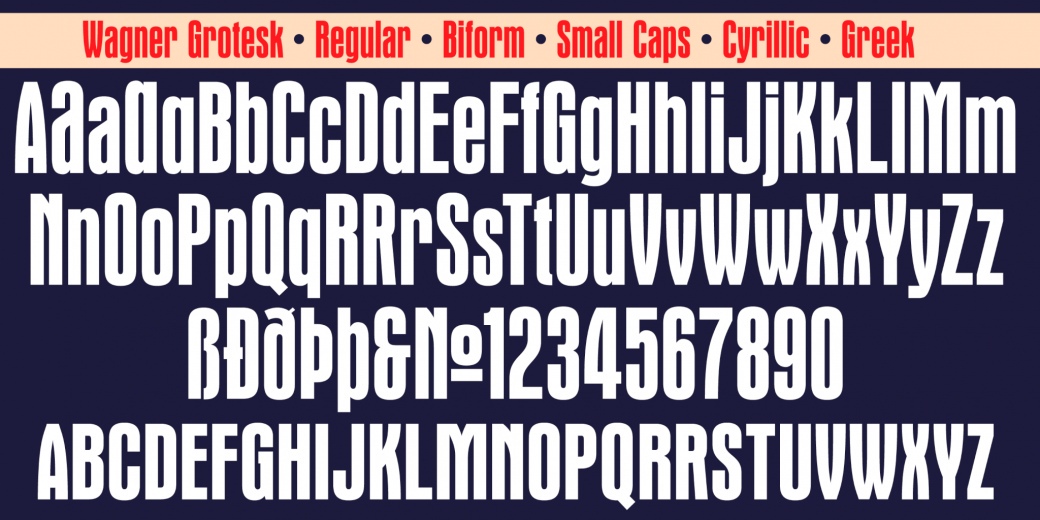
Wagner Grotesk Pro Font
Wagner Grotesk Pro Font is perfect for minimalist brand identities, contemporary corporate communications, modern architectural presentations, sleek technology interfaces, editorial magazine layouts, professional business documents, clean web design, sophisticated signage systems, contemporary art galleries, and refined marketing materials.
Wagner Grotesk Pro Font creates excitement because it embodies the perfect balance of modern clarity and timeless elegance through its precise geometric construction and sophisticated character proportions. The font's clean lines and neutral aesthetic create an atmosphere of professional confidence and contemporary sophistication, making any brand appear cutting-edge yet trustworthy. Its carefully refined letterforms and exceptional legibility ensure clear communication while the minimalist design philosophy appeals to audiences who appreciate understated excellence and modern design sensibilities.
The Wagner Grotesk Pro Font family includes multiple weights and styles: Thin, Light, Regular, Medium, Bold, Black, Ultra Black, Italic variants for each weight, Condensed, Extended, and Display versions. Each variant maintains the font's foundational grotesk principles while providing comprehensive typographic flexibility for complex brand systems and sophisticated design applications.